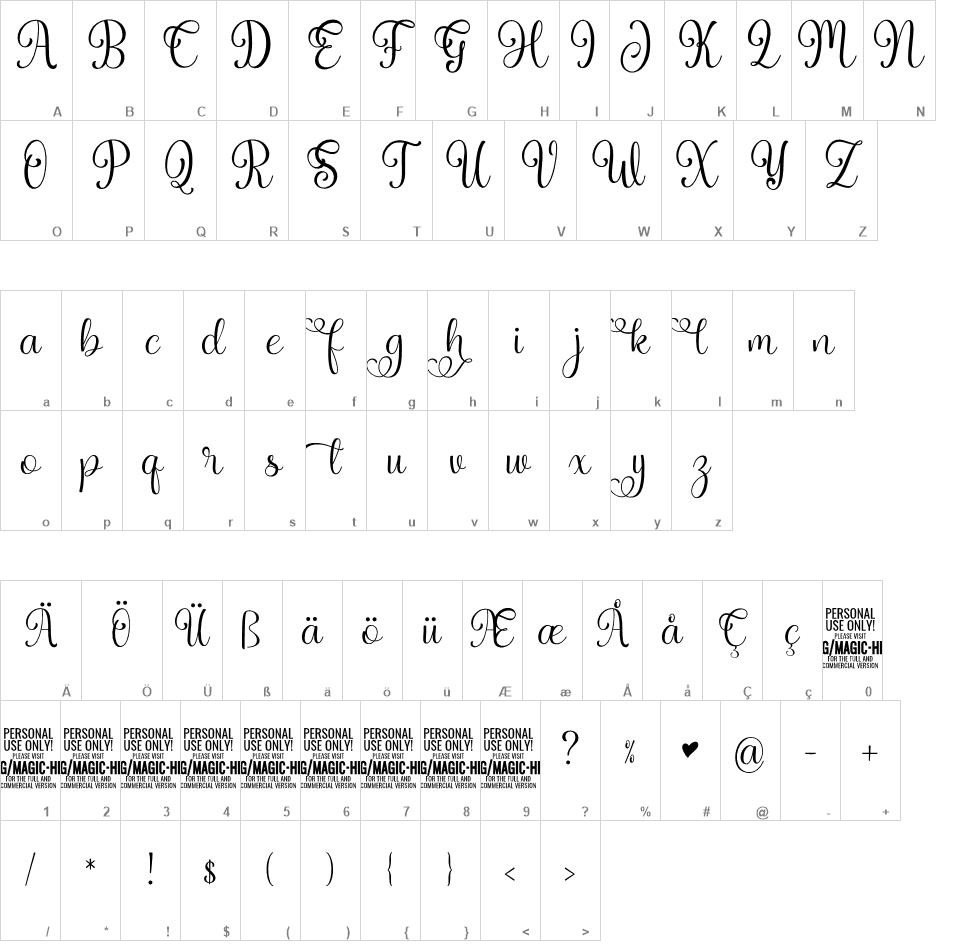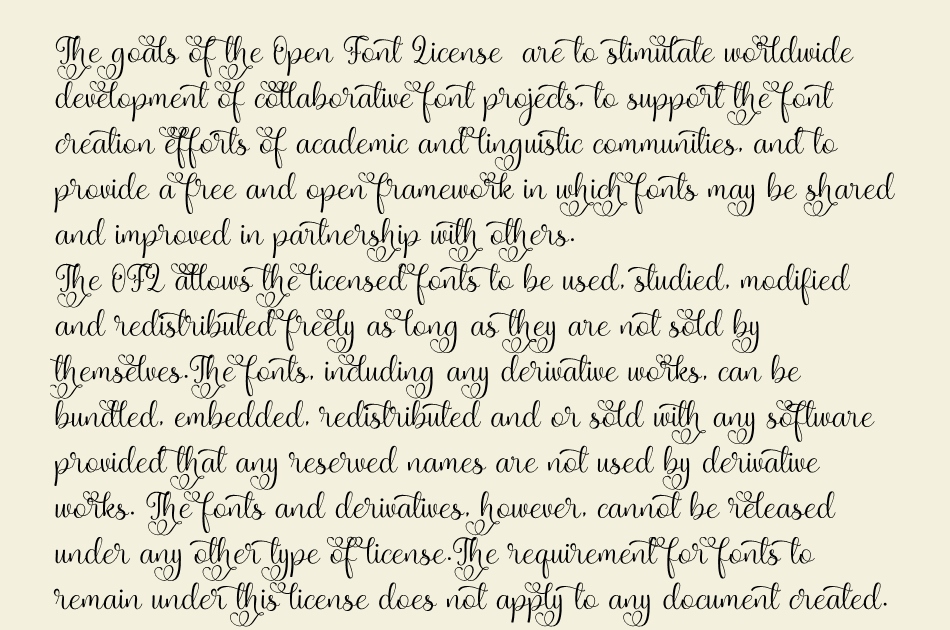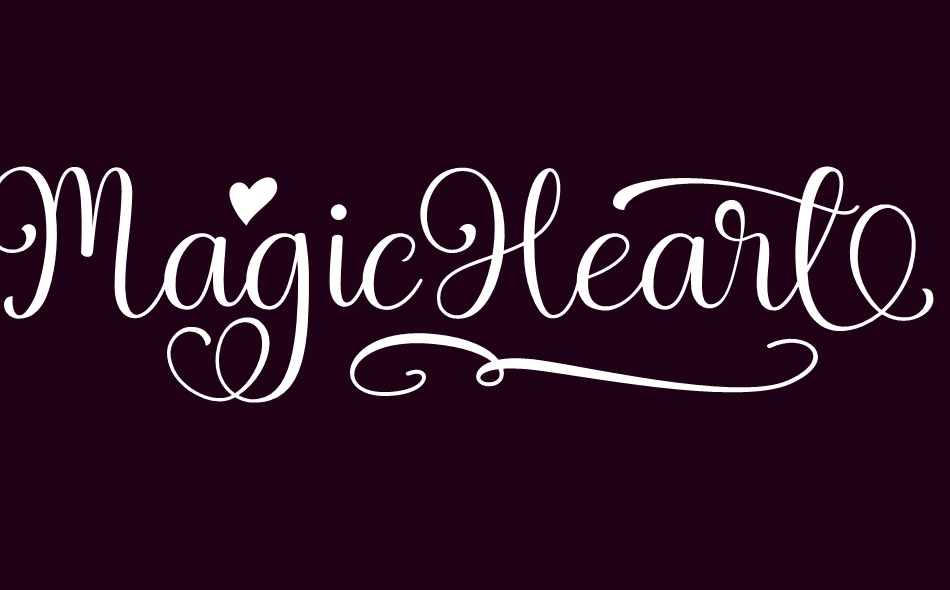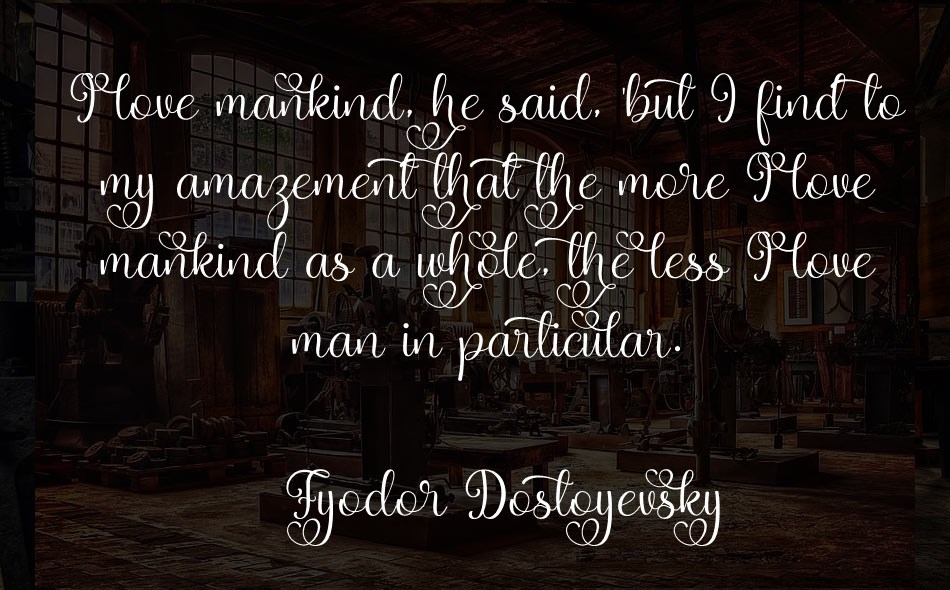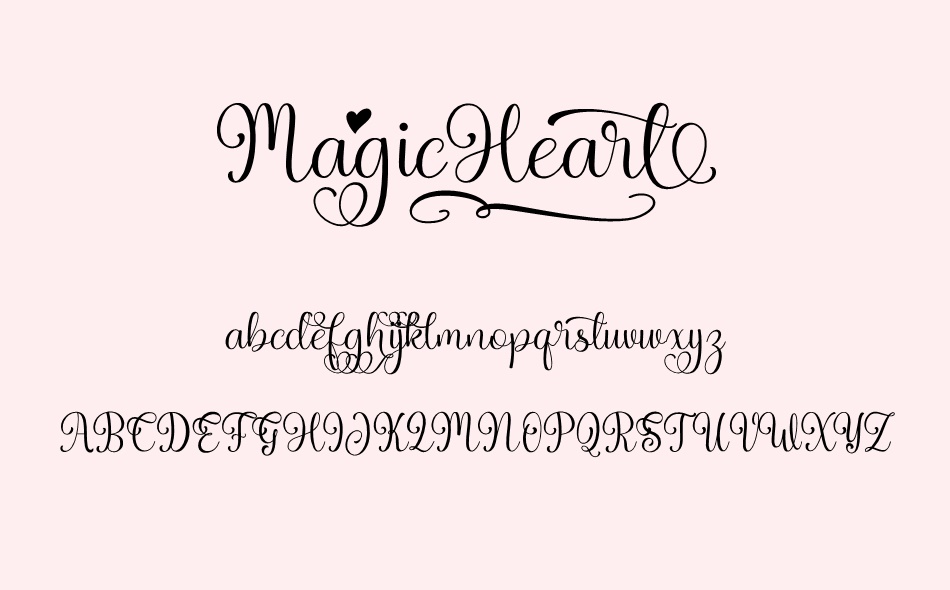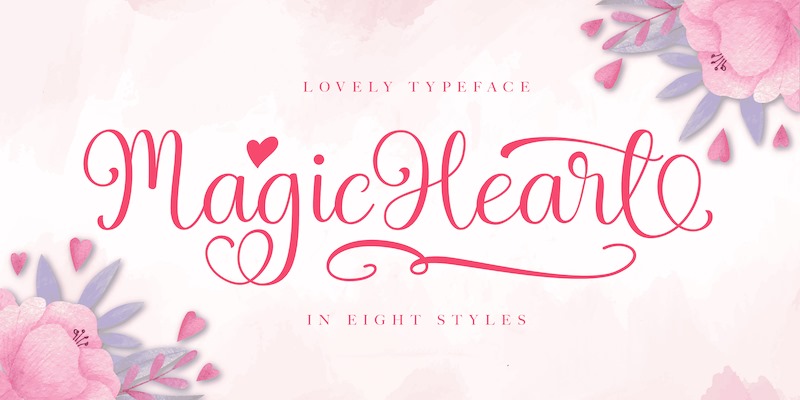
Use characters # for decorative heart symbols.
Use underscore _ anywhere in a word for swashes.
Example: Won_der
Use multiple underscore for different swashes.
Example: Love____rose
Magic Heart is a swirly script typeface.
A valentine typeface with a romantic flow, Magic Heart has a lovely personality and a passionate appearance. Its swashy capital letters gives any project a sincere vibe.
Use characters # ¤ for decorative heart symbols.
Use underscore _ anywhere in a word for swashes. Example: Won_der Use multiple underscore for different swashes. Example: Love____rose
The Magic Heart family consists of eight styles: The ornamental Swash and Swash Bold, the normal Regular and Bold, plus each of the styles as Italic.
The font is built with advanced OpenType functionality and has a guaranteed top-notch quality, containing stylistic and contextual alternates, ligatures and more features; all to give you full control and customizability. It has extensive lingual support, covering all Latin-based languages, from North Europe to South Africa, from America to South-East Asia. It contains all characters and symbols you'll ever need, including all punctuation and numbers.